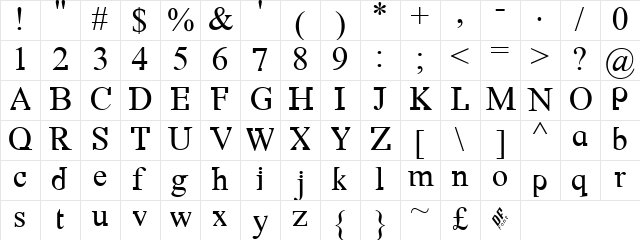
DF667 New Kinder Regular
Design Context for DF667 New Kinder Typeface
DF667 New Kinder offers clean, dependable letterforms without strong stylistic allegiance, making it a practical choice for designers who need flexibility.